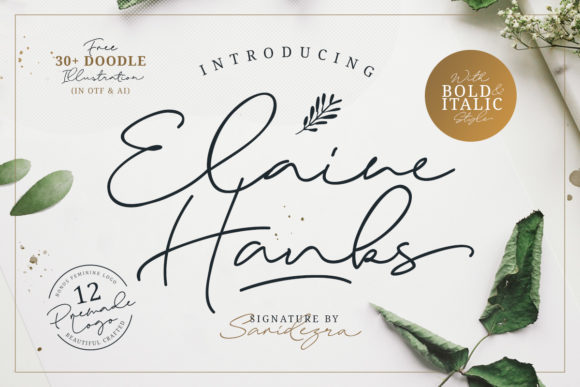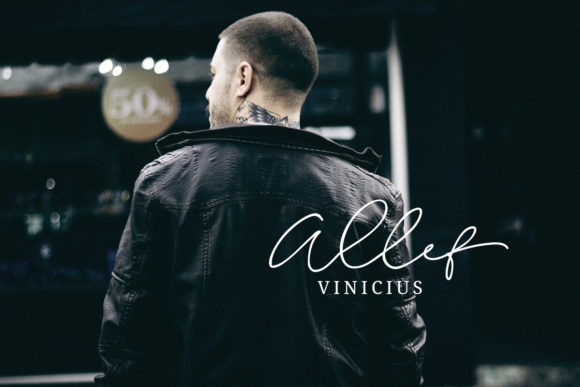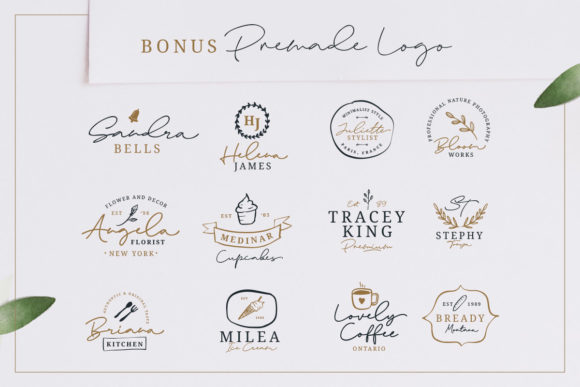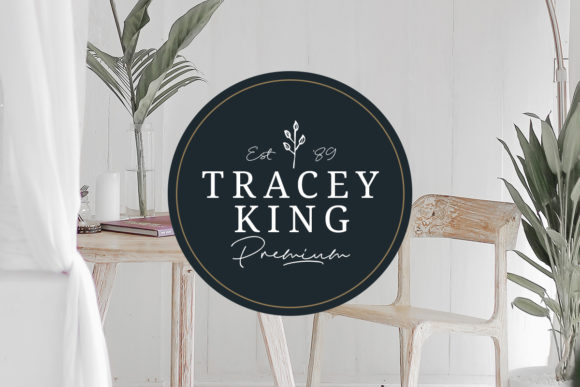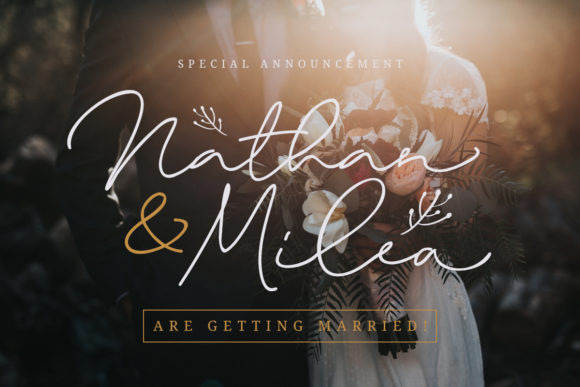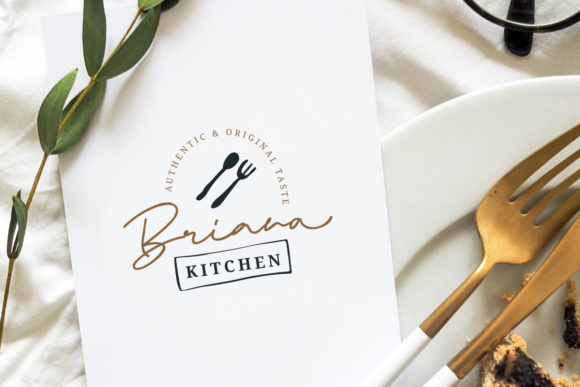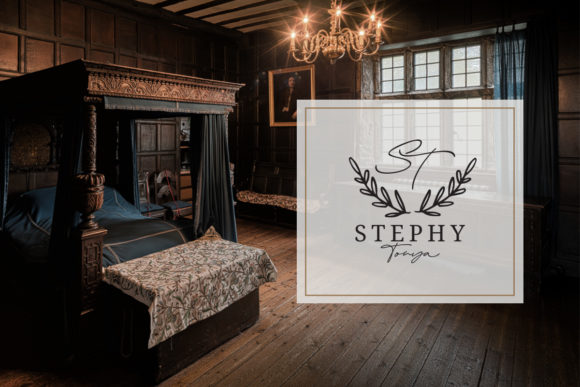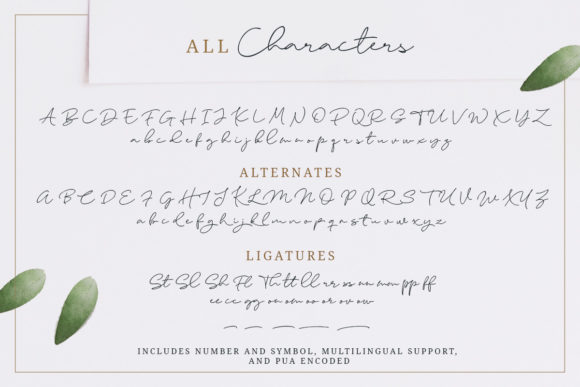
Elaine Hanks Font
Full of authenticity, Elaine Hanks is a beautiful and charming handwritten font. It will turn any design project into a true stand out!